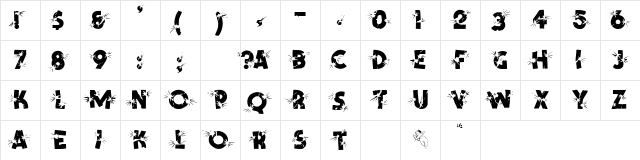
Shrapnel Normal Free Font
Shrapnel Normal
Design Context for Shrapnel
Shrapnel is a composed and adaptable typeface that performs quietly and consistently across a wide range of design contexts.